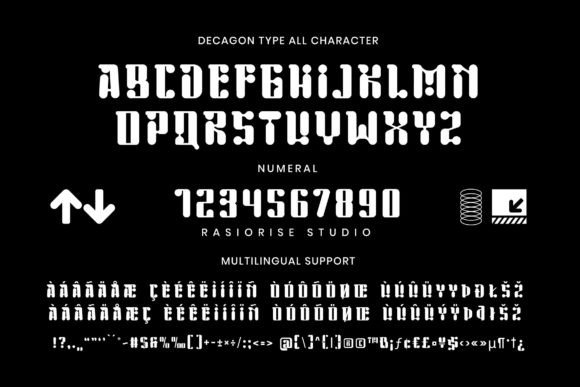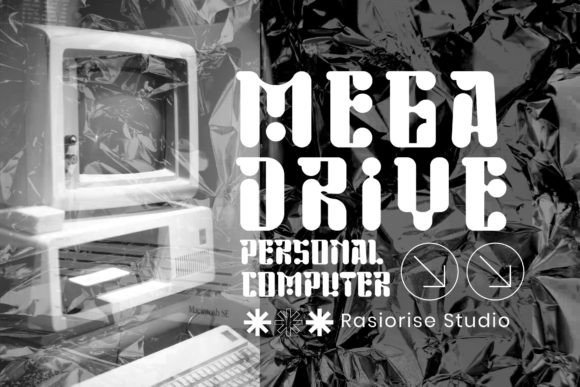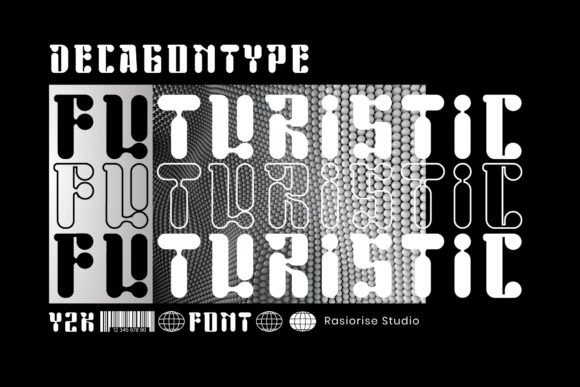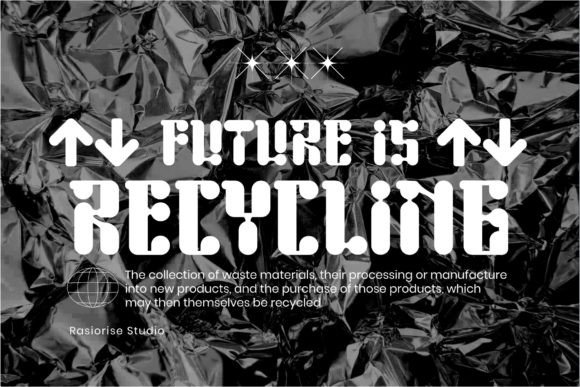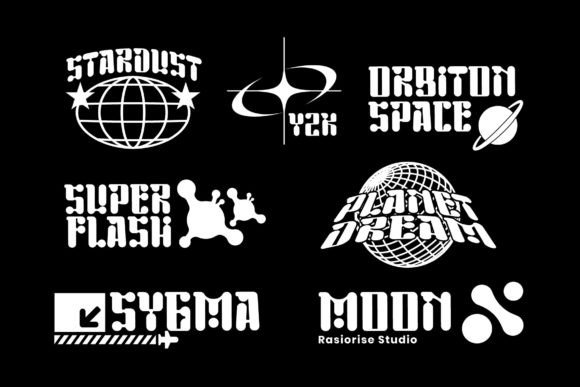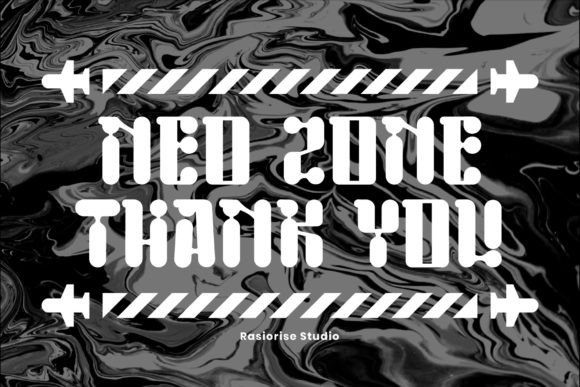
Presenting Decagon Type – Y2K Futuristic Display Font
In the realm of typography, the quest for a font that embodies the essence of futurism and Y2K aesthetics has led to the creation of Decagon Type. This innovative display font is inspired by the realms of Sci-Fi, Cyberpunk, Hyperbeast, and Mecha, combined with the geometric elegance of a decagon shape. For designers and crafters on the lookout for a typeface that speaks to the futuristic vibe of the Y2K era, Decagon Type emerges as a stellar choice.
The Genesis of Decagon Type
The journey of Decagon Type began with an exploration of the visual lexicon of the Y2K era – a period marked by its distinct futuristic and cyberpunk influences. Designers and typographers sought to encapsulate this aesthetic in a font that could serve various creative projects, from digital media and advertising to fashion and product design. The decagon, with its ten-sided geometric form, offered a unique canvas for experimentation, leading to the development of Decagon Type.
Decagon Type is characterized by its bold, geometric lines and futuristic appeal. The font’s design integrates the clean, angular features of a decagon, resulting in a typeface that exudes a sense of advanced technology and forward-thinking. Each letterform is meticulously crafted to ensure legibility while maintaining the stylized, somewhat unconventional look that defines the Y2K and cyberpunk genres.
- Geometric Inspiration: The decagon shape lends a unique geometric precision to the font, setting it apart from more traditional typefaces.
- Y2K and Cyberpunk Aesthetic: Decagon Type captures the essence of the Y2K era’s futuristic and cyberpunk styles, making it ideal for projects that require a contemporary, edgy look.
- Versatility: The font’s clear structure ensures it can be used across various mediums, from digital platforms to print materials.
- Legibility: Despite its stylized appearance, Decagon Type prioritizes readability, making it suitable for headlines, titles, and short texts.
Applications of Decagon Type
The versatility of Decagon Type makes it an excellent choice for a wide range of applications. Designers can utilize this font in:
- Digital Media: Enhance your website headers, social media graphics, and digital advertisements with a futuristic touch.
- Print Design: Add an avant-garde feel to your posters, flyers, and brochures.
- Fashion and Product Design: Incorporate Decagon Type into your branding, packaging, and promotional materials for a cutting-edge look.
- Art and Illustration: Use the font to add textual elements to your sci-fi, cyberpunk, or futuristic-themed artworks.
Why Choose Decagon Type?
In a sea of typefaces, Decagon Type stands out for its unique blend of geometric inspiration and futuristic appeal. Whether you’re working on a project that demands a bold statement or seeking to infuse your brand with a dose of modernity, Decagon Type offers a compelling solution. Its design not only pays homage to the Y2K and cyberpunk aesthetics but also propels your creative work into the future.
Decagon Type – the Y2K Futuristic Display Font – is more than just a typeface; it’s a design statement. With its roots in the geometric and futuristic, this font serves as a bridge between the imaginative realms of science fiction and the tangible world of design. For those on the quest for a font that embodies the spirit of the future, Decagon Type is an indispensable tool, ready to elevate your projects and set them apart in the world of design.